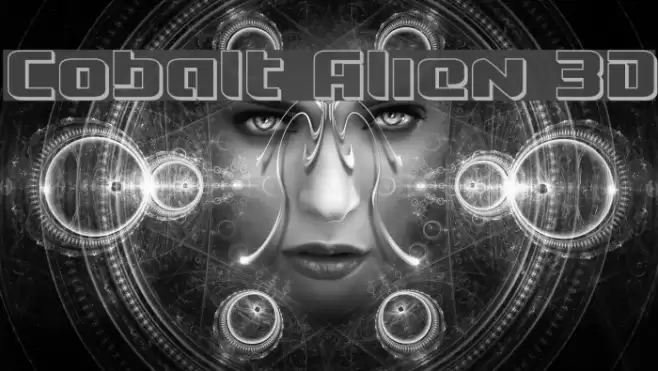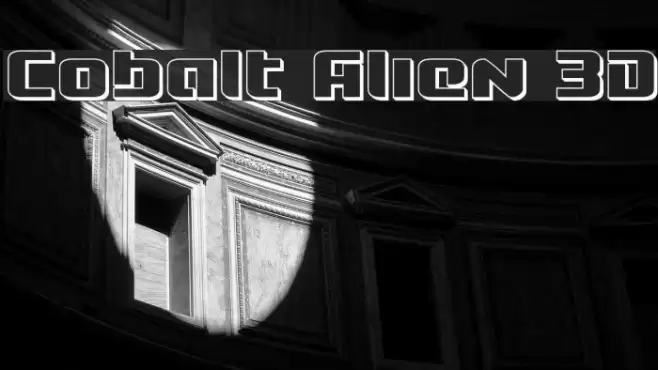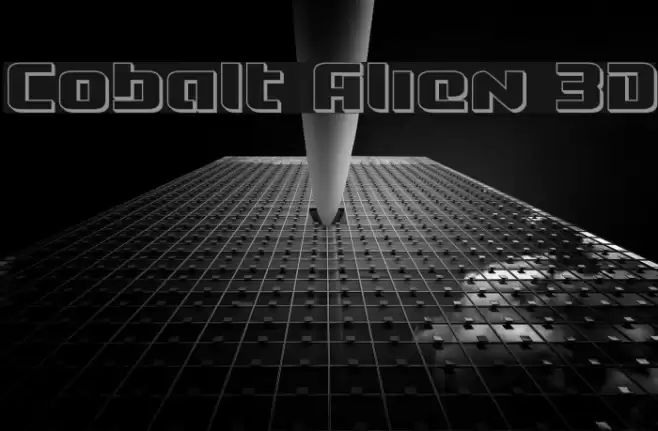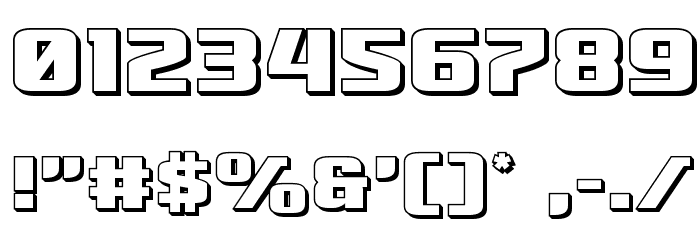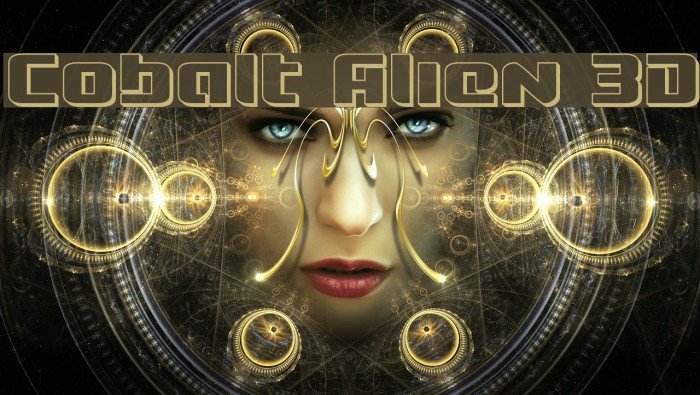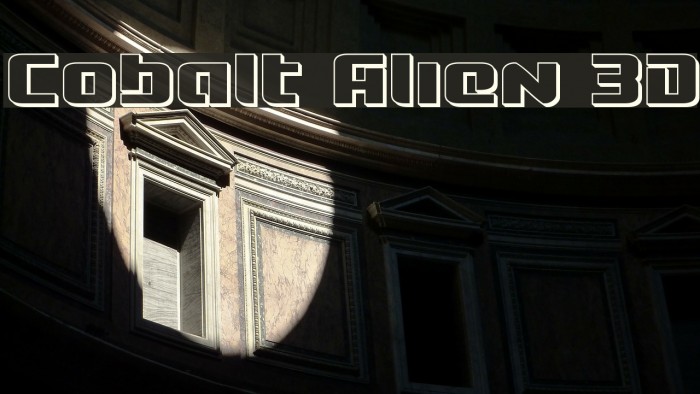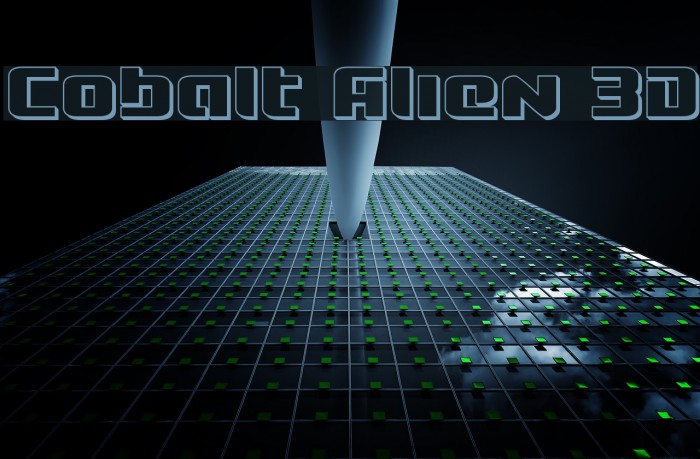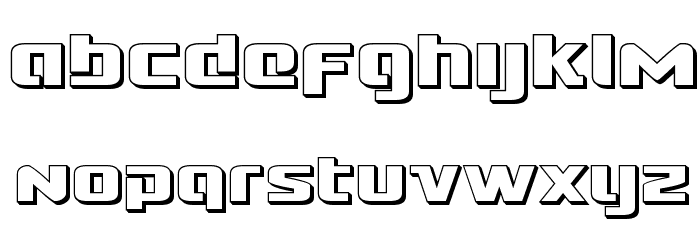
Cobalt Alien 3D Font
Cobalt Alien 3D Description
This font features a bold, futuristic design with a three-dimensional effect that gives it a unique, standout appearance. The characters are outlined, creating a hollow look that enhances the 3D illusion. Its geometric shapes and sharp angles contribute to a modern and tech-inspired aesthetic. The uppercase and lowercase letters maintain a consistent style, with uniform stroke widths and clean lines. The numerals and special characters are designed to match the overall theme, ensuring a cohesive look across all text elements. This font is ideal for projects that require a bold and eye-catching typeface.
A bold, 3D outlined font with a futuristic and geometric design from Uncategorized fonts.
- Proposed Projects: Ideal for sci-fi themed posters, video game titles, tech branding, and futuristic event flyers.
- Overall Style: Futuristic